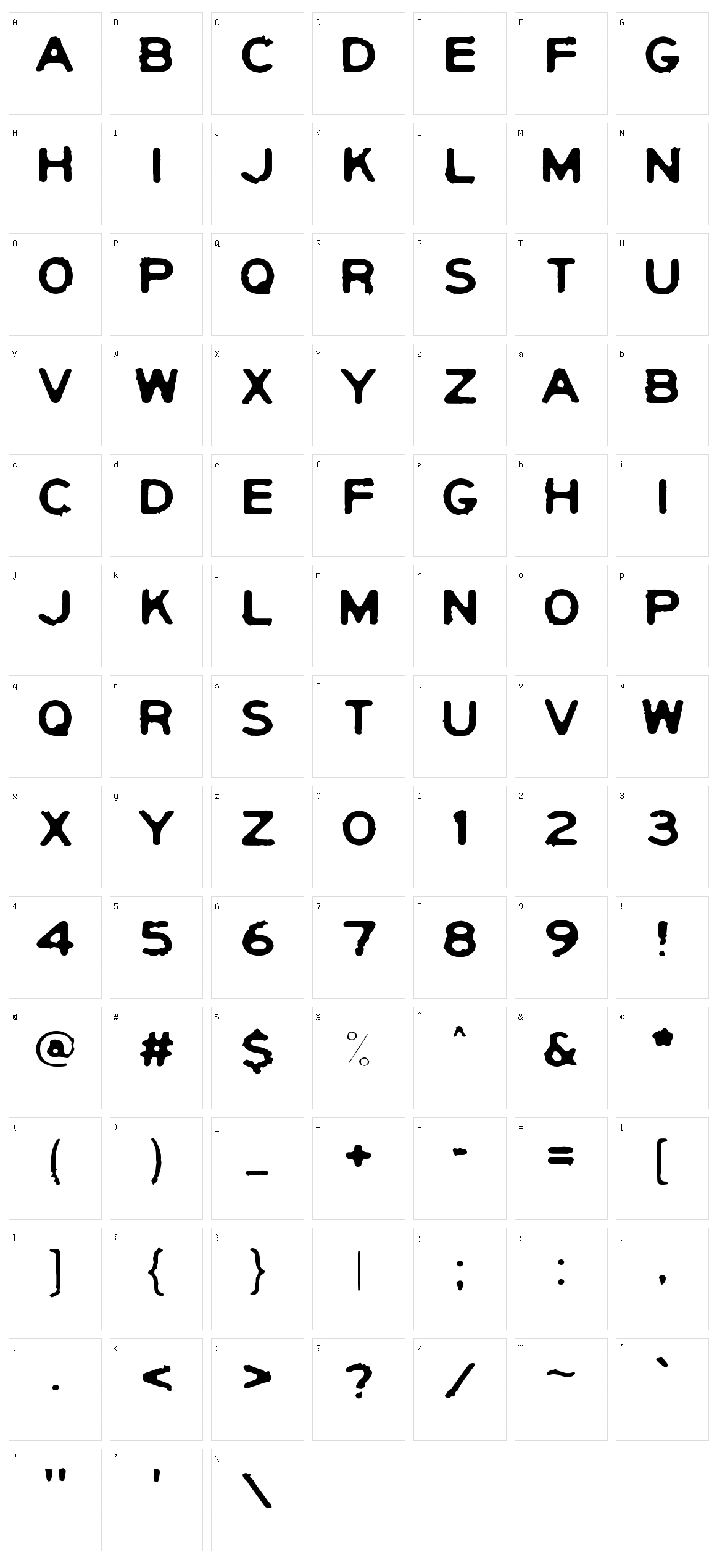
The free font Yericho Punx is carefully designed by junkohanhero, showcasing a thoughtful balance of creativity and usability and falls under the Eroded font style. When you download the ZIP file, it contains only 37.48 KB of font files, making it lightweight and quick to download. Please review the license details below to understand permitted usage and distribution rights. If license information is not available, we recommend using this font for personal projects only or contacting the author directly for commercial usage permissions.